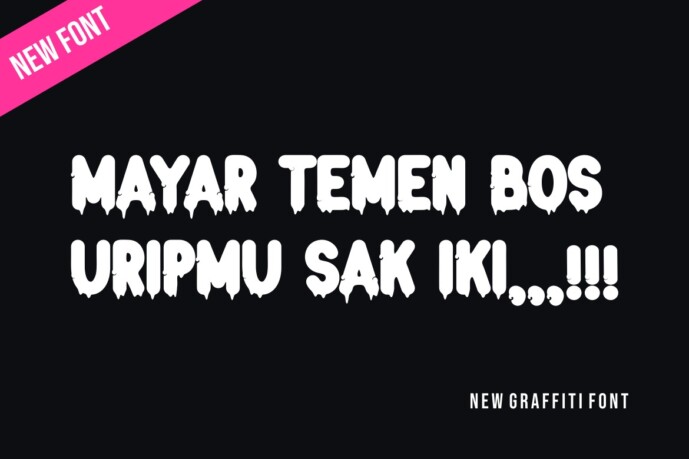
Slow Back Font
Designer: ryomics
Slow Back Font – Modern Font is a bold and authentic display font. The font is suitable for any branding project like Logo, t-shirt printing, esports and many more. Excellent in a wide range of contexts